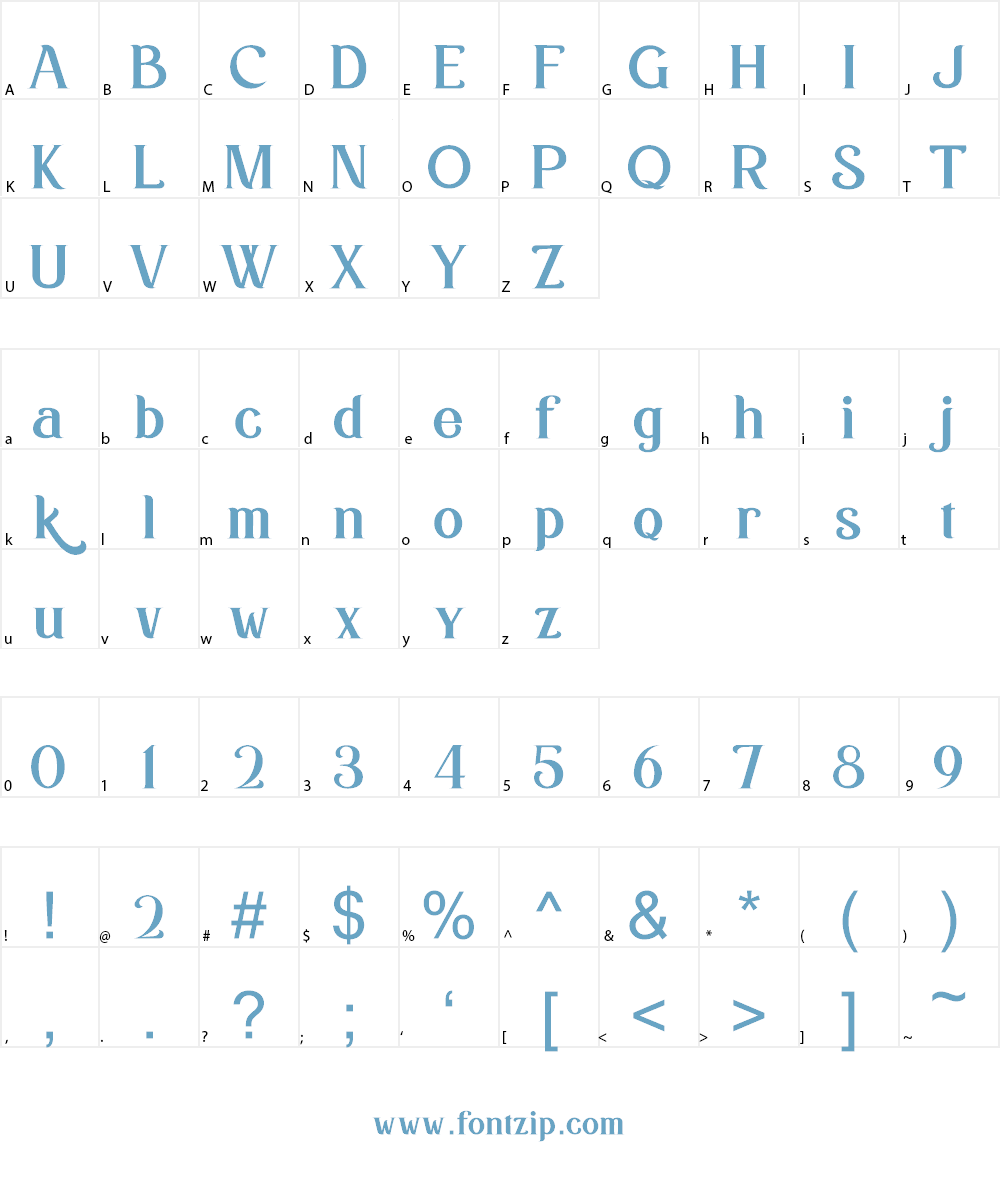
Say hello to Kafina Serif Font, Kafina is a beautiful display font, designed with a modern and bold style. It’s suitable for branding, logo, and many other designs.